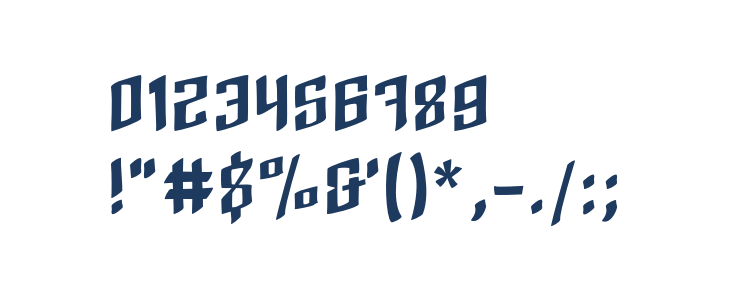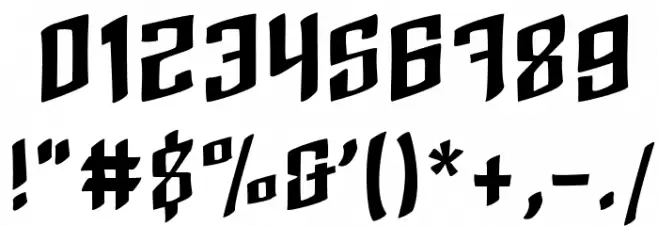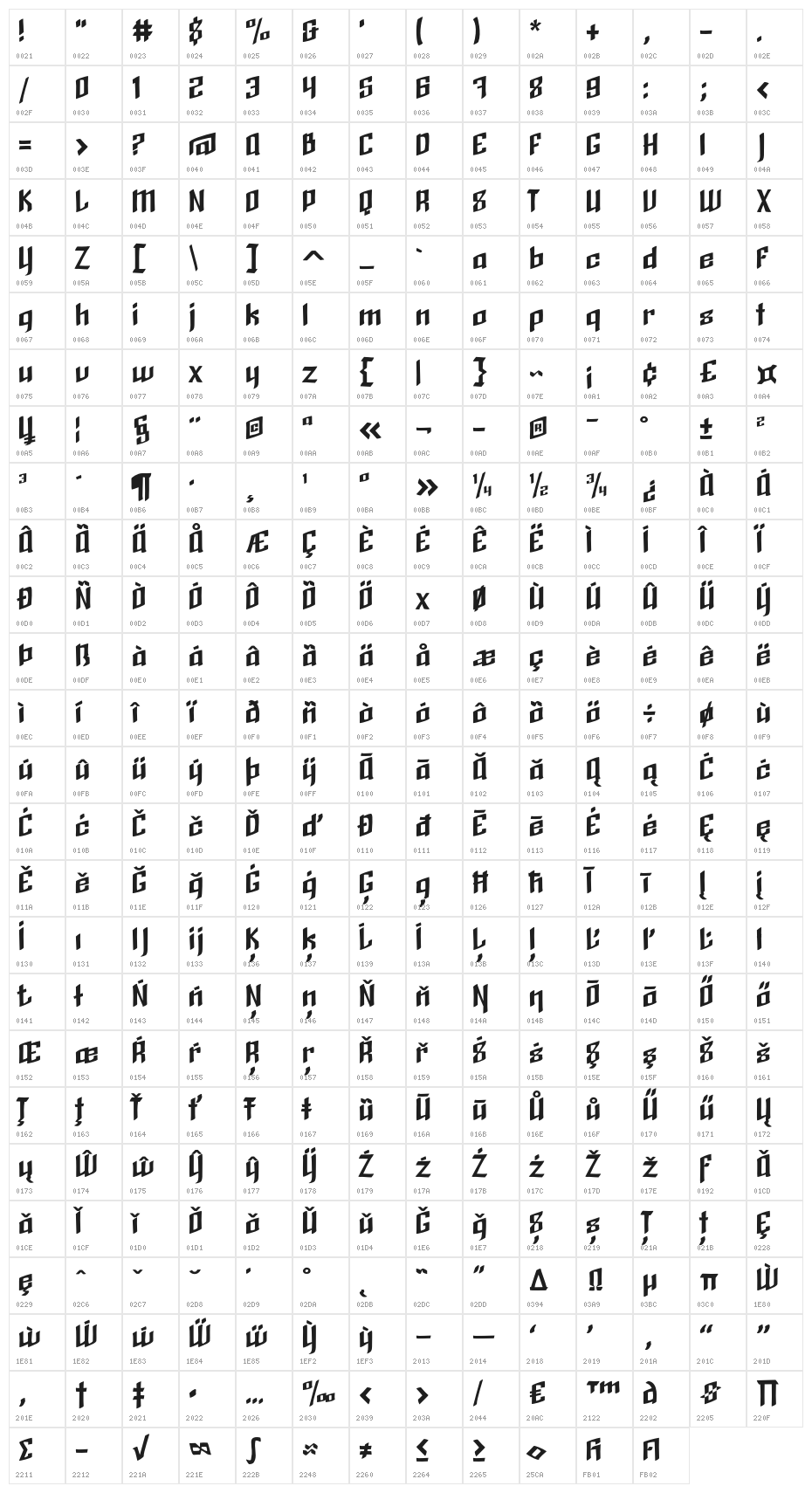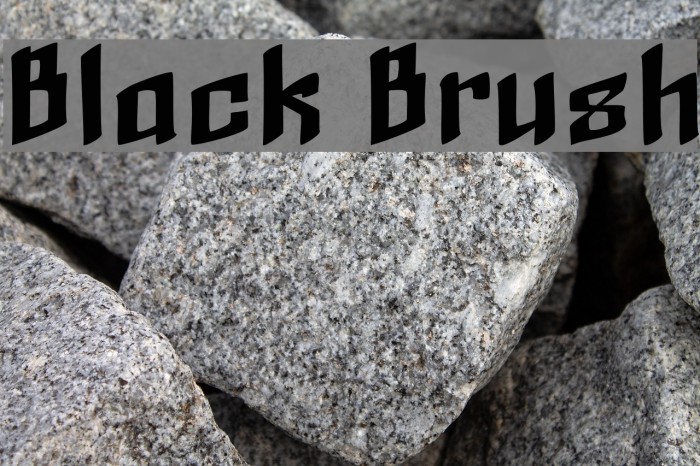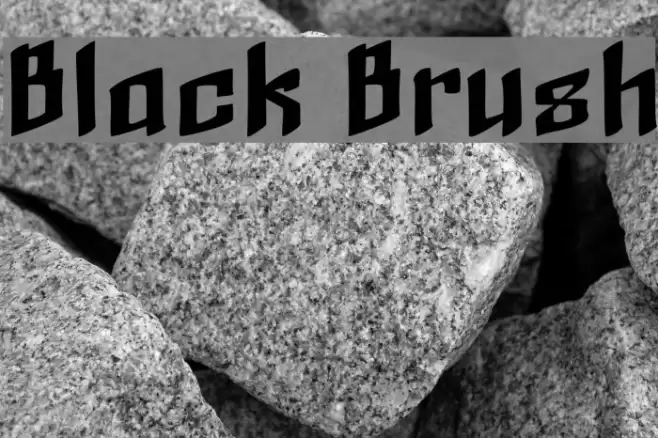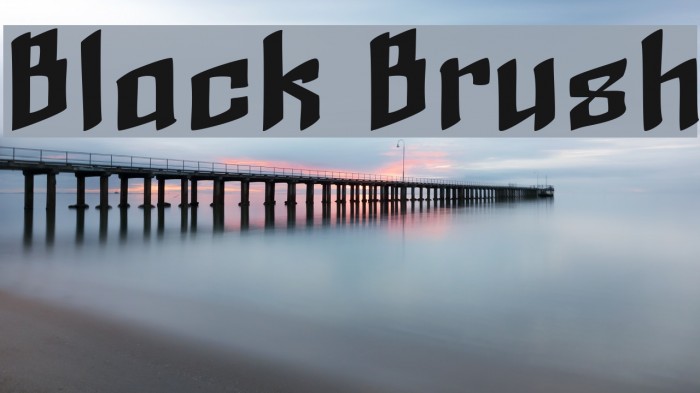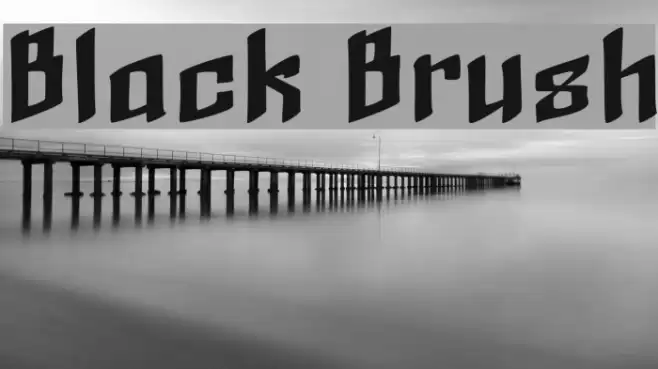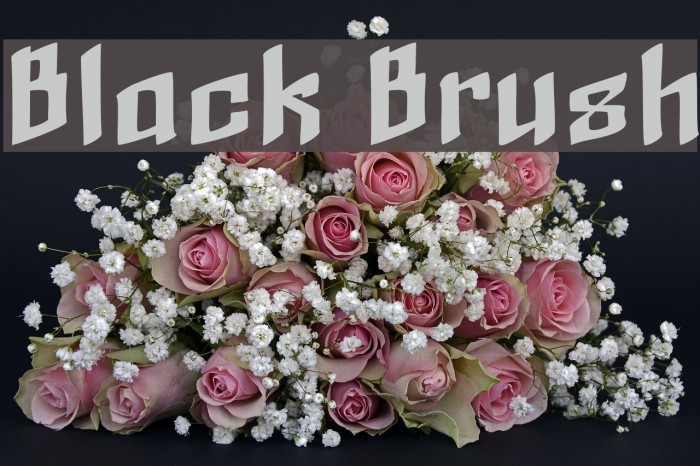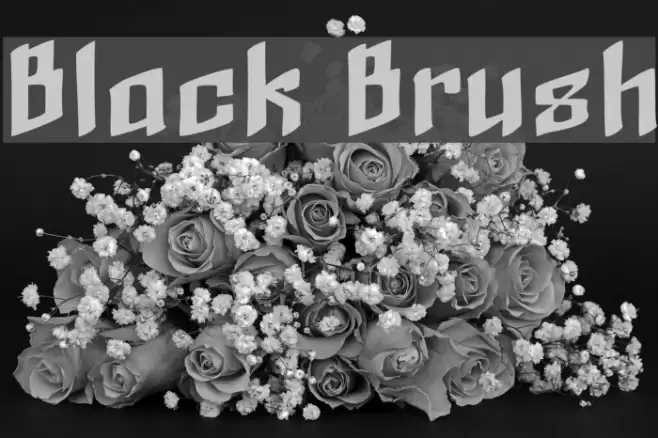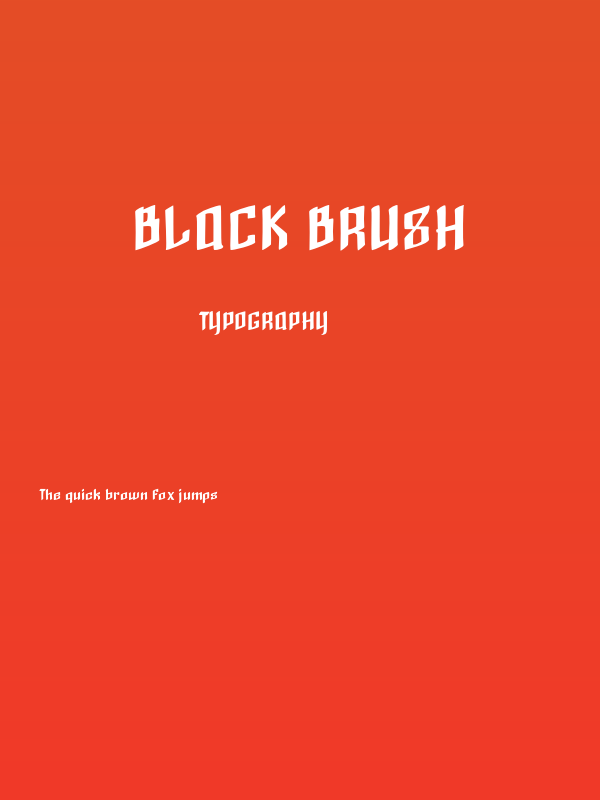
Black Brush Font
Black Brush Description
This font features a bold and dynamic brush style, characterized by its sharp angles and thick strokes. The uppercase letters exhibit a strong presence with a slight slant, giving them a sense of motion and energy. Lowercase letters maintain the same boldness, with unique forms that enhance readability while preserving the artistic flair. Numbers and special characters are crafted with the same attention to detail, ensuring consistency across all glyphs. The overall appearance is striking and modern, making it suitable for projects that require a bold statement.
| Proposed Projects | Ideal for branding, posters, headlines, and any design needing a bold, artistic touch. |